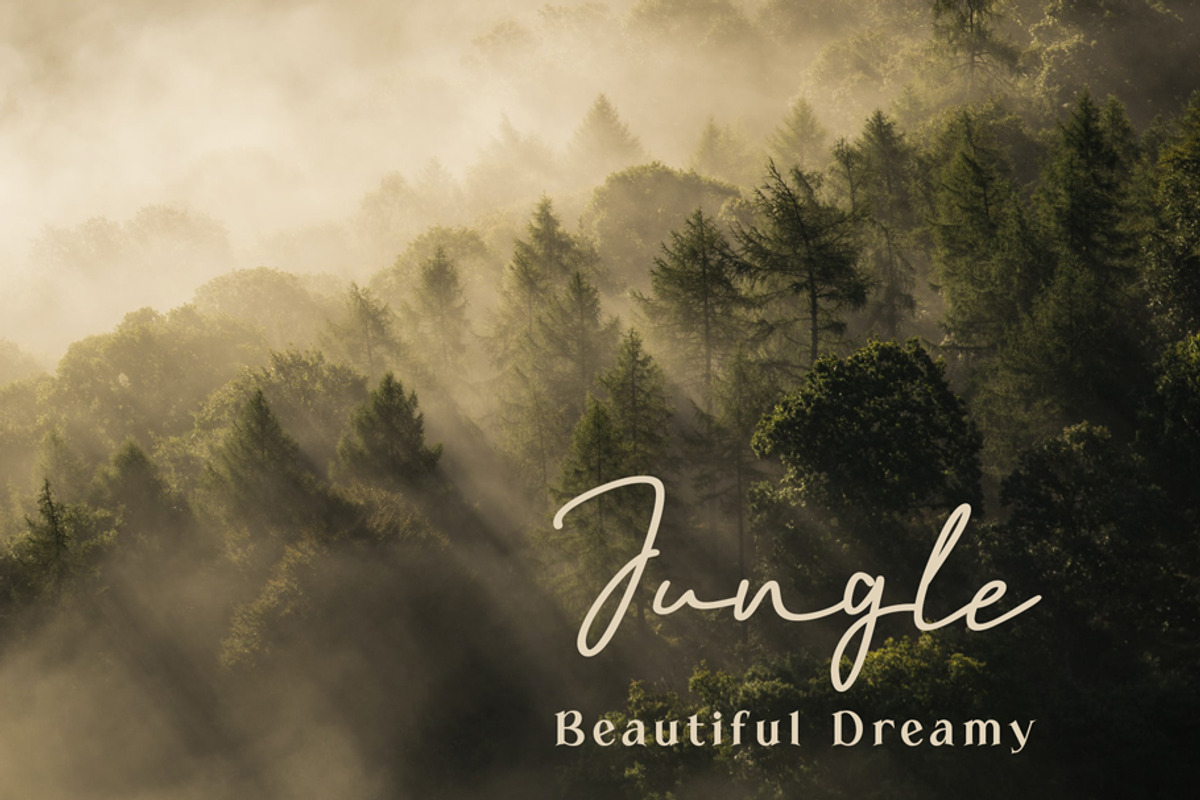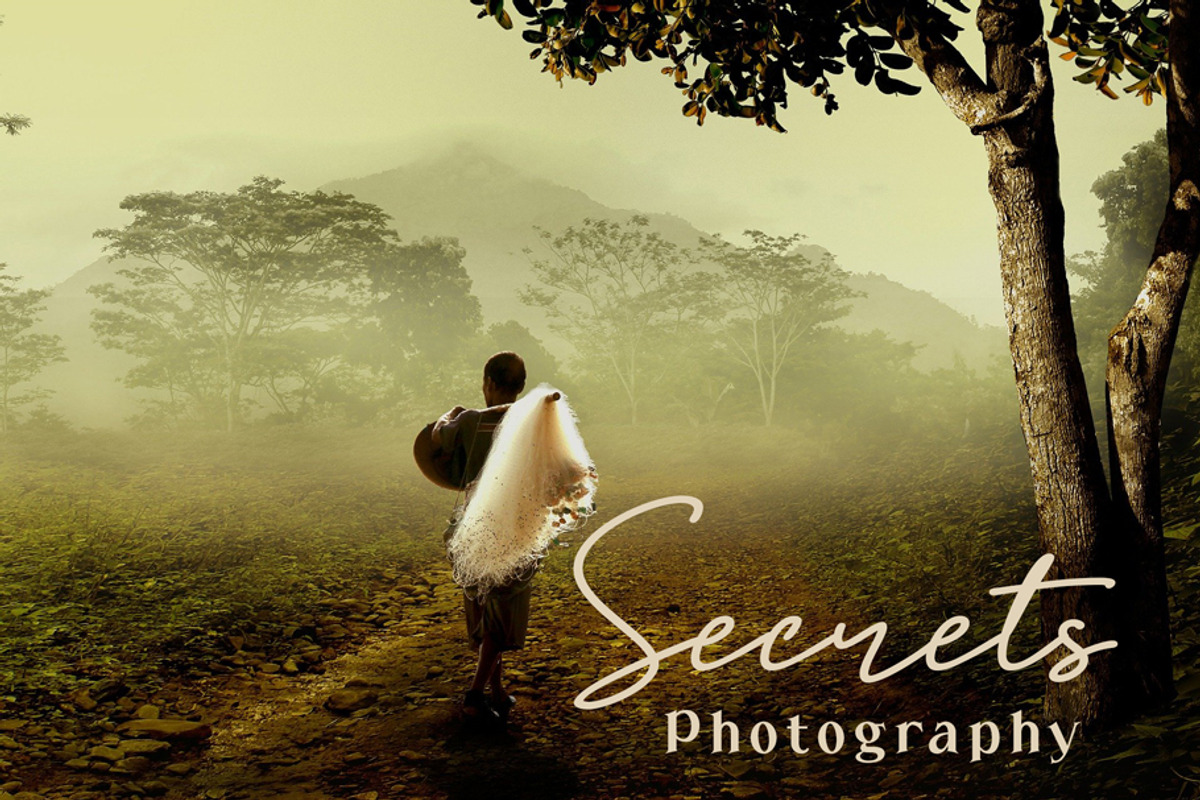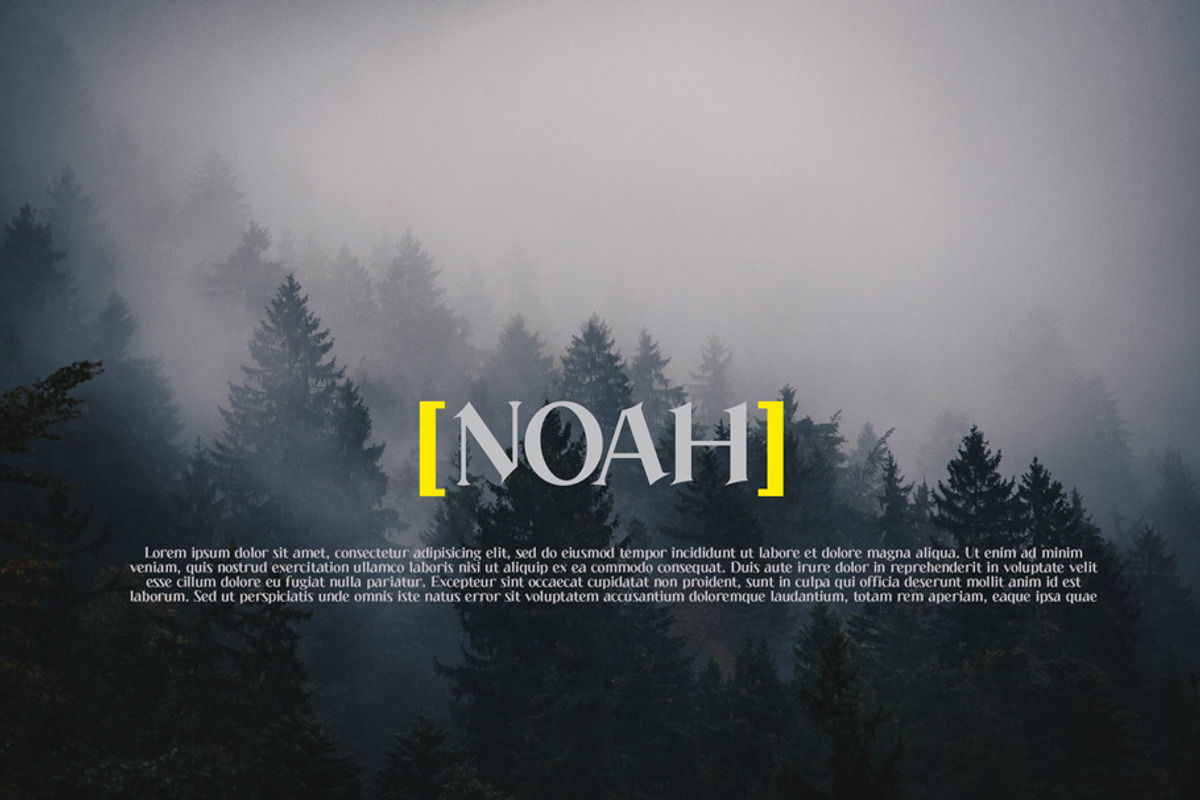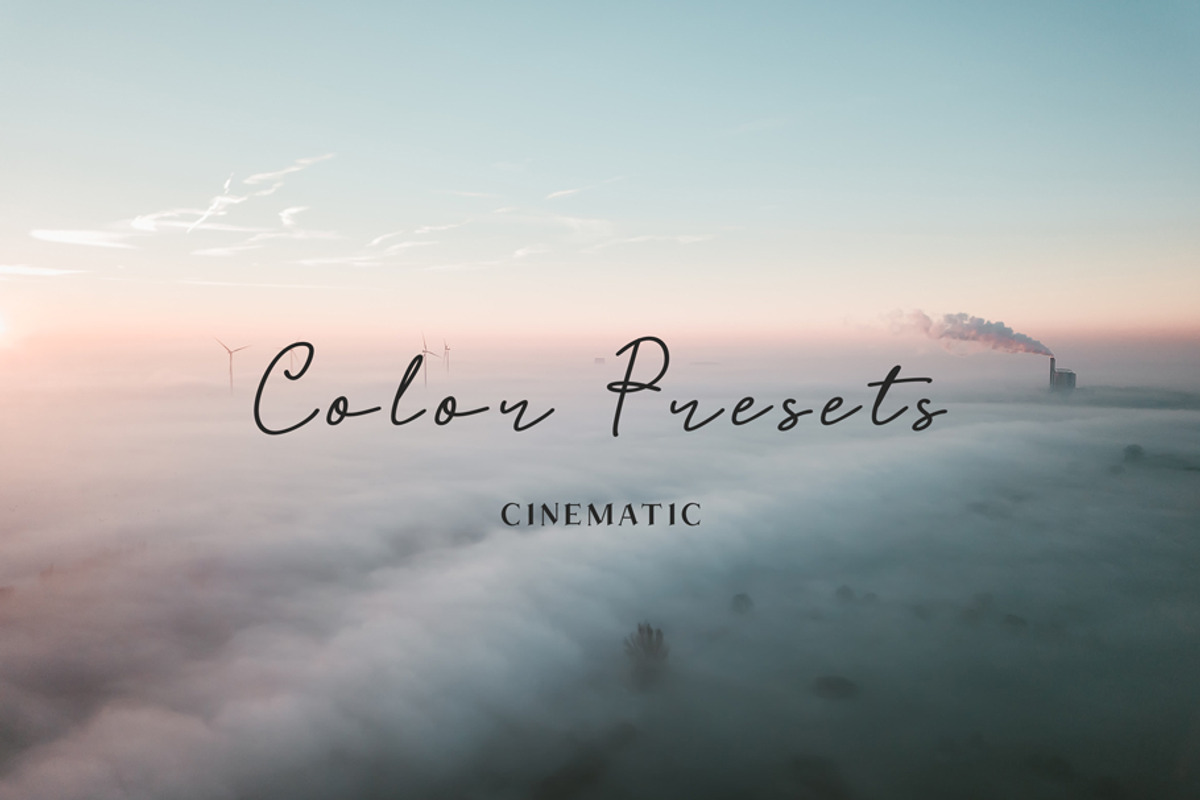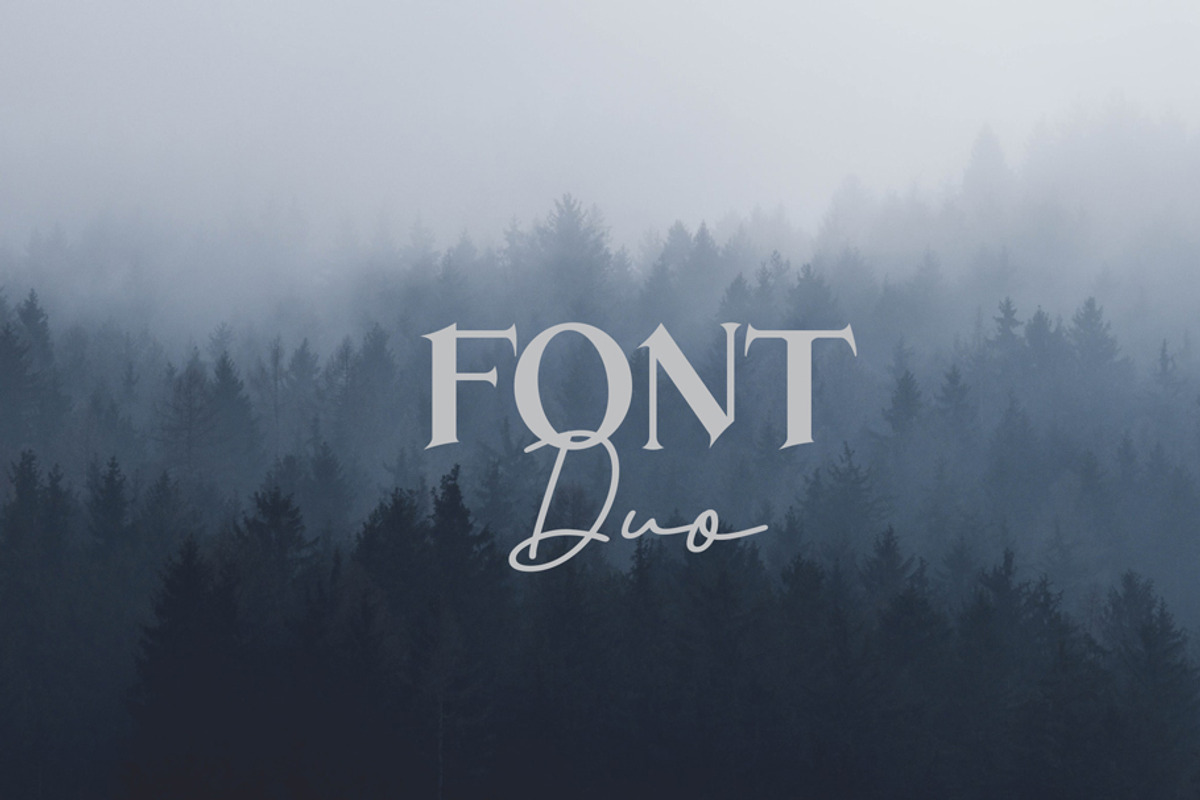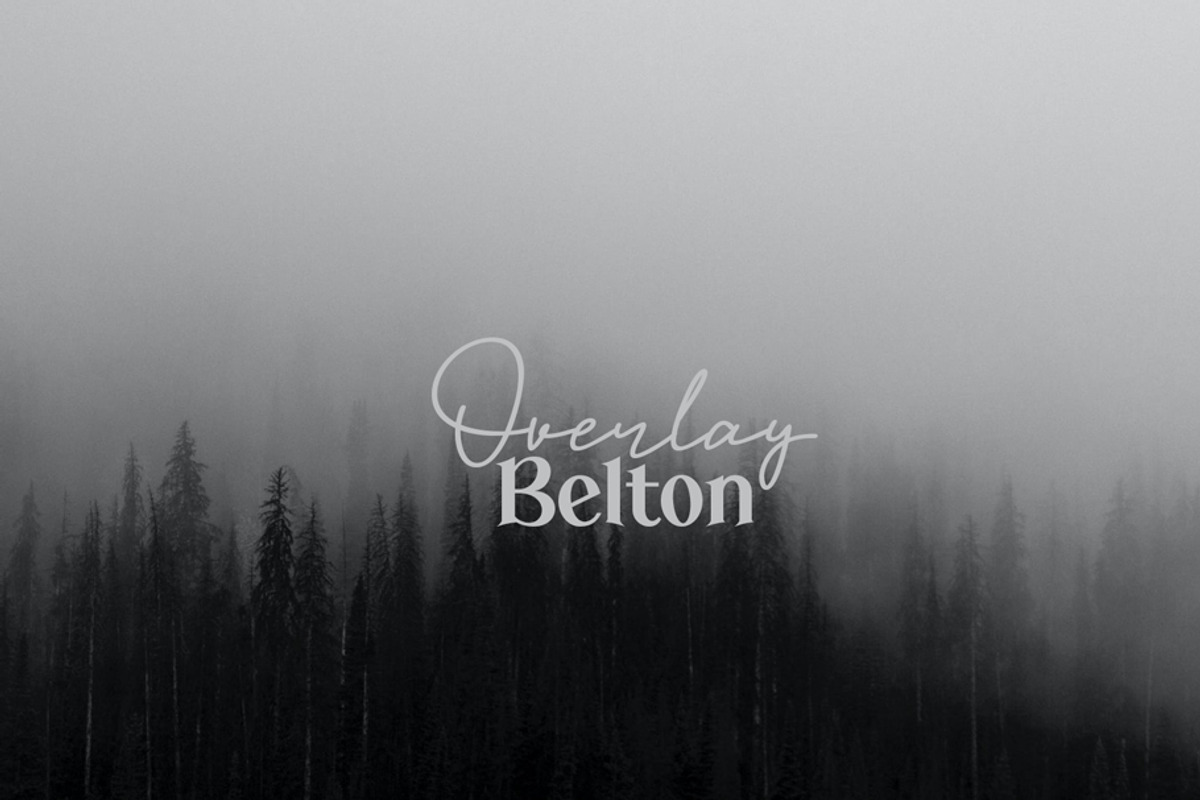
Overlay Belton - Duo Font
Overlay Belton is a stunning duo font (handwritten and serif). Combine them for gorgeous design results! It’s suitable for magazine designs, branding, invitations, greeting cards, photography, interior designs, and much more!
This gorgeous font includes all lowercase and uppercase characters, numbers, punctuation, swash, alternate ,an array of standard ligatures and a selection of international characters as well (please type in the preview below to see if I have what you need!)